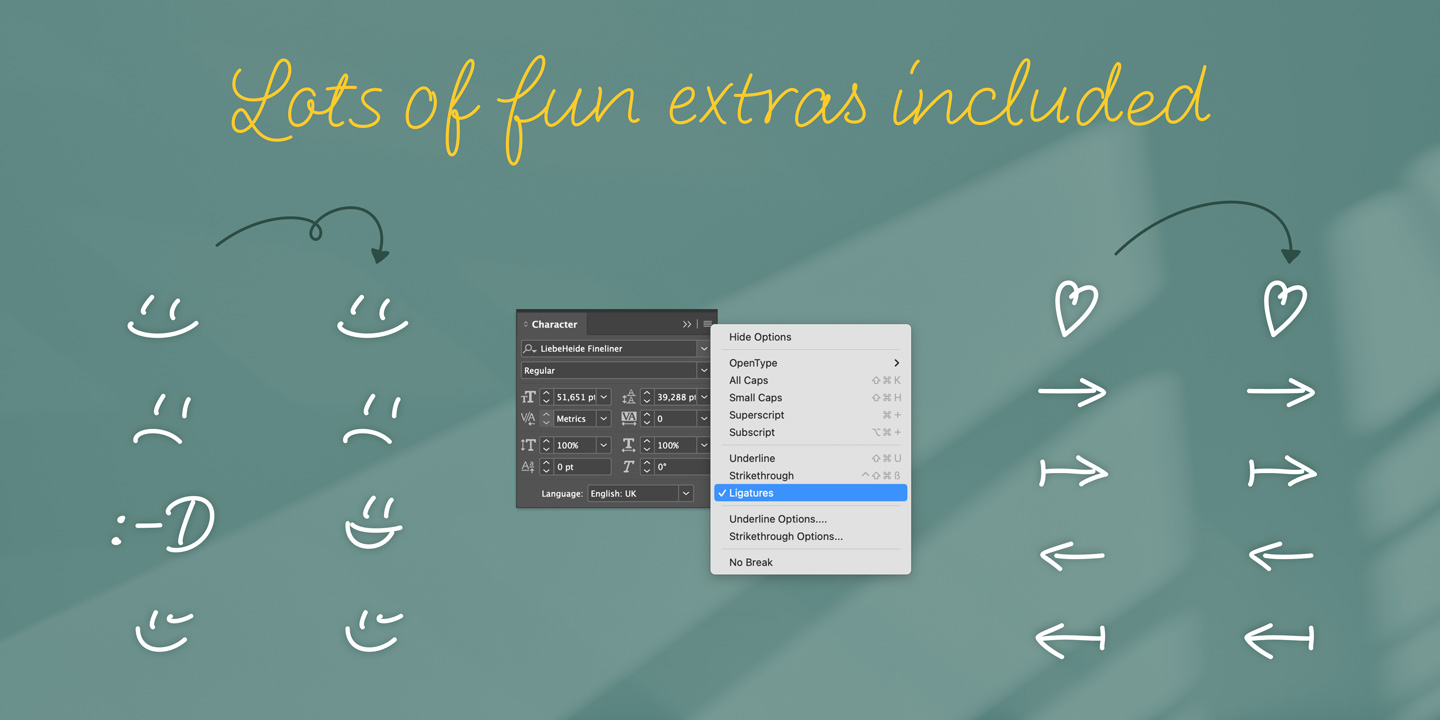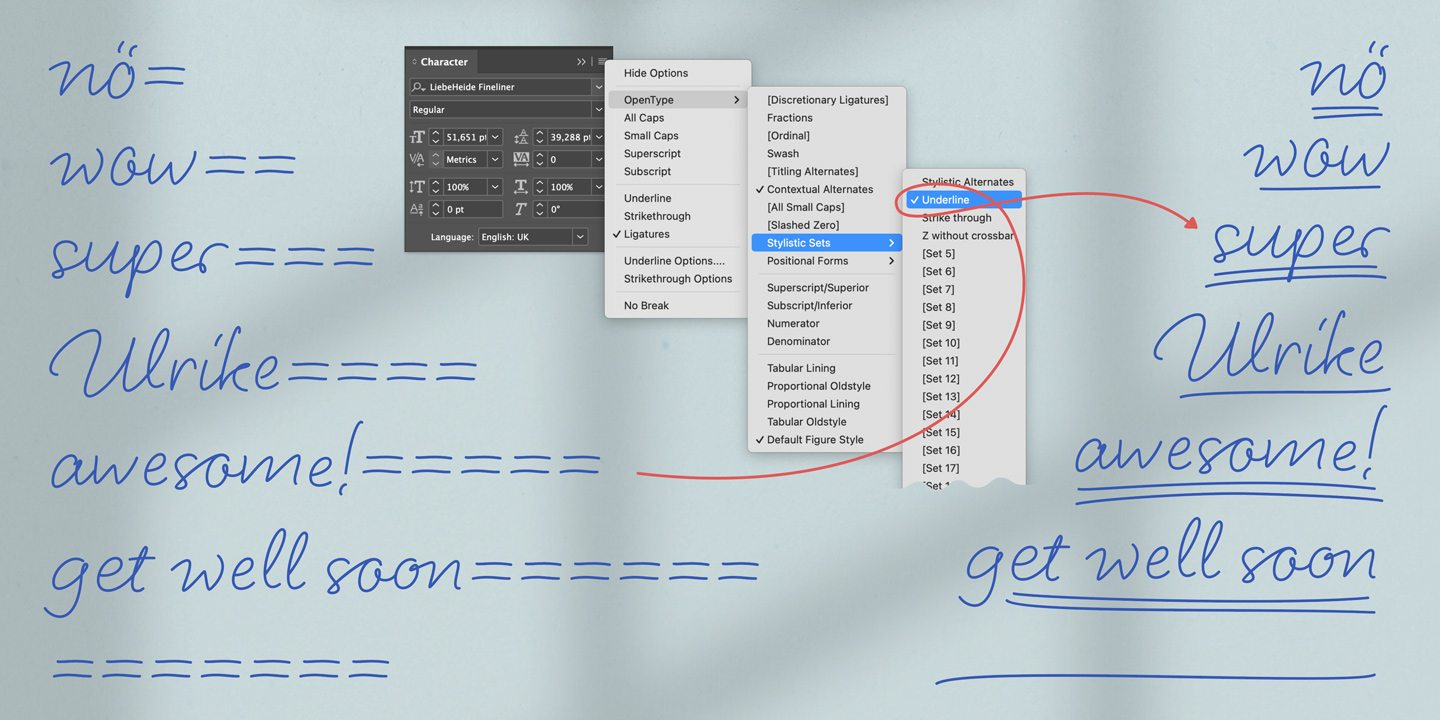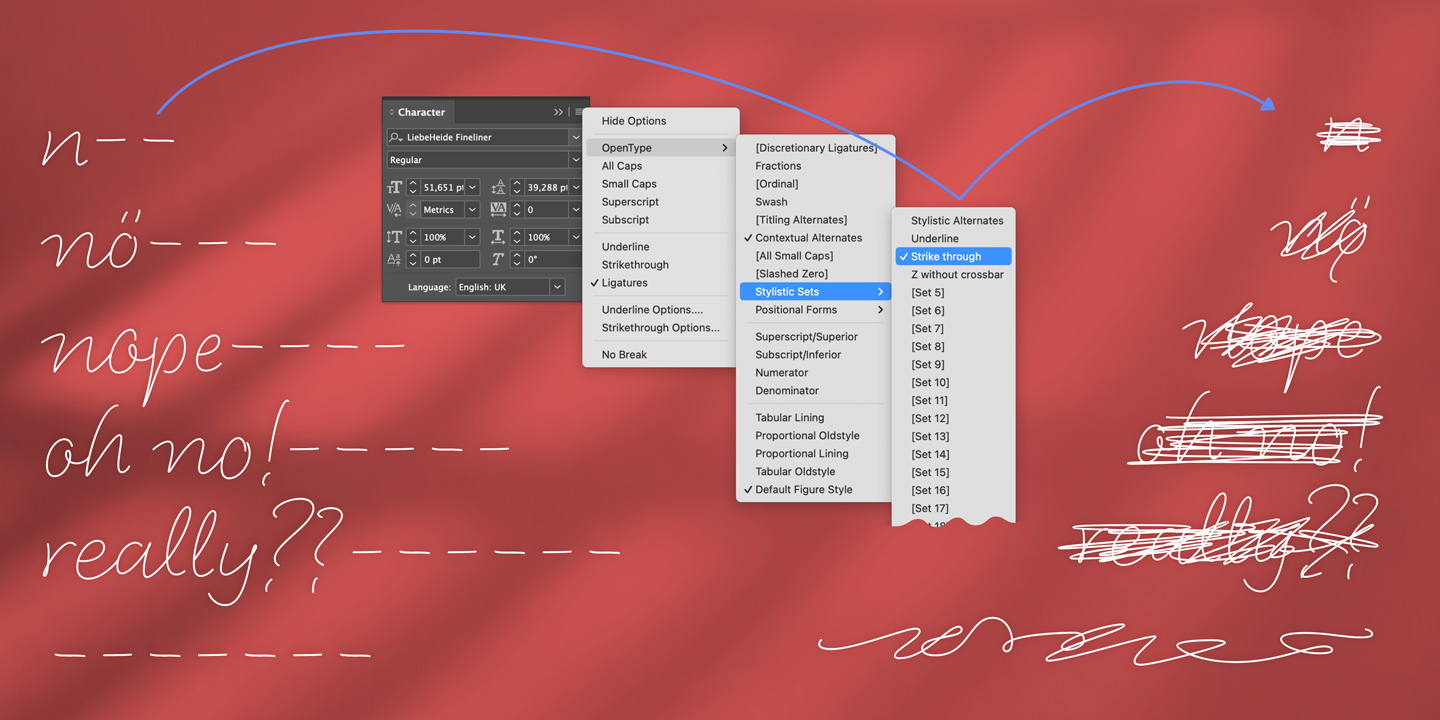
LiebeHeide Fineliner
Meet the vector version of the award-winning color font LiebeHeide—now more versatile and lifelike than ever!
With its clean lines and smooth curves, LiebeHeide Fineliner adds a personal, friendly touch that sets it apart from standard handwriting fonts.
Packed with a wide range of ligatures, it creates more natural letter connections: your designs will flow effortlessly, capturing the organic feel of handwritten text.
Additionally, LiebeHeide Fineliner offers numerous alternatives for each letter, allowing you to craft unique text every time.
Whether you're working on personal projects, branding, or serial mailings, this font is the perfect way to capture attention and create a lasting connection with your audience.